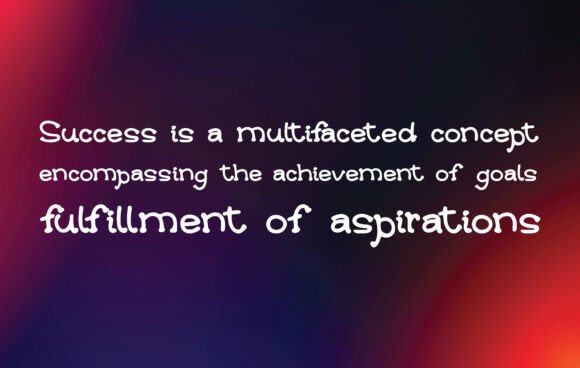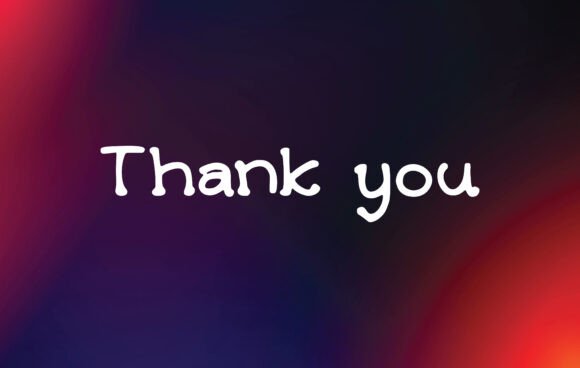
Axton Font: Elevate Your Creative Projects with this Lovely Handwritten Font
Are you a designer, craftor, or creative enthusiast looking for a font that can take your projects to the next level? Look no further than Axton Font, a beautiful and lovely handwritten font that is sure to impress. With its unique and elegant style, Axton Font has the potential to elevate your creative ideas and make them shine.
What Makes Axton Font Special?
Axton Font is a carefully crafted handwritten font that boasts a distinctive and charming style. Its flowing lines and curves give it a warm and inviting feel, making it perfect for a wide range of creative projects. Whether you’re looking to create eye-catching logos, branding materials, or quotes, Axton Font is the ideal choice.
Key Features of Axton Font
- Unique and Elegant Style: Axton Font features a one-of-a-kind handwritten style that is both elegant and sophisticated.
- Highly Versatile: This font can be used for a wide range of creative projects, from logos and branding to quotes and more.
- Easy to Read: Despite its ornate style, Axton Font is highly legible and easy to read, making it perfect for use in both digital and print materials.
- Scalable: Axton Font is designed to be highly scalable, ensuring that it looks great in any size or format.
Why Choose Axton Font?
So why choose Axton Font over other fonts? Here are just a few reasons why Axton Font stands out from the crowd:
- Stand Out from the Crowd: With Axton Font, you can create unique and eye-catching designs that are sure to grab attention.
- Perfect for Branding: Axton Font’s elegant style makes it perfect for use in branding materials, such as logos, business cards, and more.
Tips and Tricks for Getting the Most out of Axton Font
- Experiment with Different Sizes and Colors: Axton Font looks great in a variety of sizes and colors, so don’t be afraid to experiment and find the perfect combination for your project.
- Pair it with Other Fonts: Axton Font pairs well with a variety of other fonts, so try combining it with other fonts to create a unique and interesting look.
- Use it for Headings and Titles: Axton Font is perfect for use in headings and titles, where its elegant style can really shine.
In conclusion, Axton Font is a beautiful and lovely handwritten font that is sure to elevate your creative projects. With its unique and elegant style, Axton Font is perfect for designers, crafters, and creative enthusiasts looking to create eye-catching logos, branding materials, and quotes. So why wait? Download Axton Font today and start taking your creative ideas to the next level.